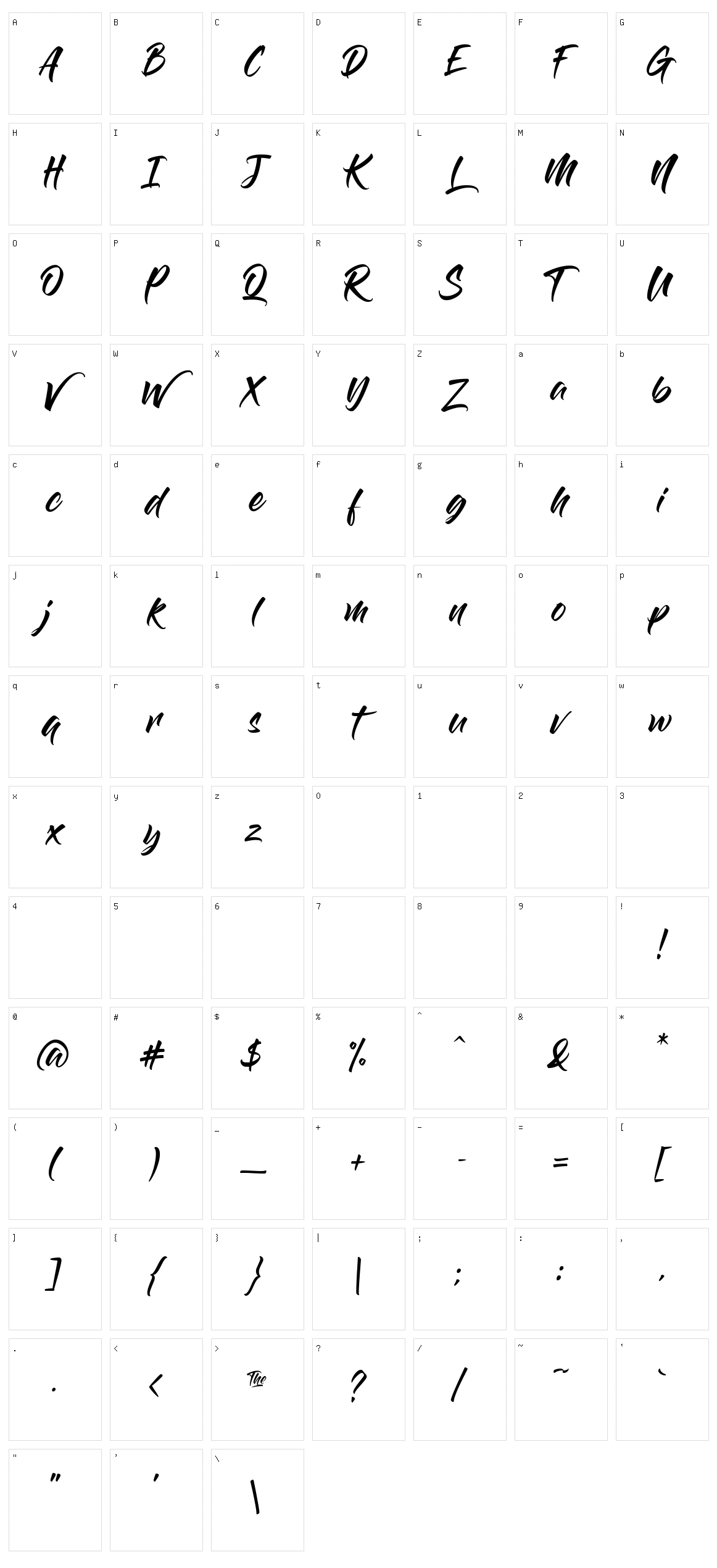
The free font The Breakdown is carefully designed by StereoType, showcasing a thoughtful balance of creativity and usability and falls under the Script font style. When you download the ZIP file, it contains only 749.57 KB of font files, making it lightweight and quick to download. Please review the license details below to understand permitted usage and distribution rights. If license information is not available, we recommend using this font for personal projects only or contacting the author directly for commercial usage permissions.